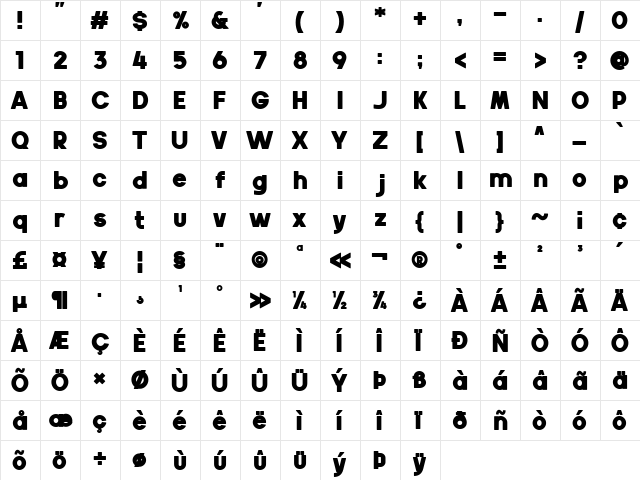
Gila Bold
| Foundry | Khurasan |
| Designer | Khurasan |
Design Context for Gila Typeface
Gila offers clean, dependable letterforms without strong stylistic allegiance, making it a practical choice for designers who need flexibility. Its bold stroke weight gives it real presence on the page.